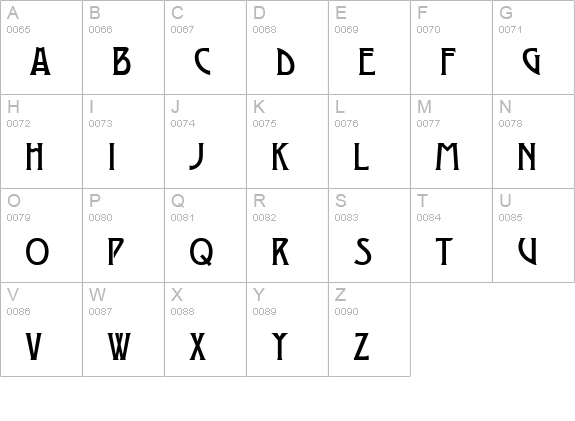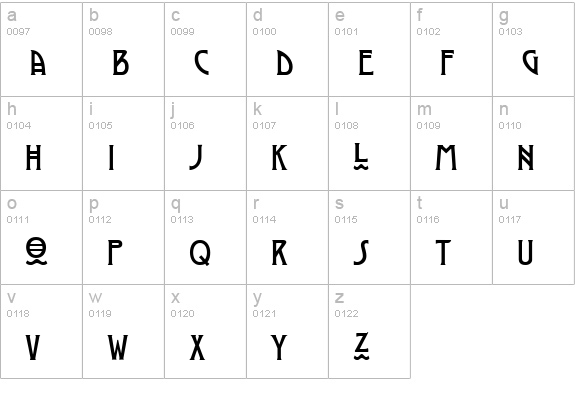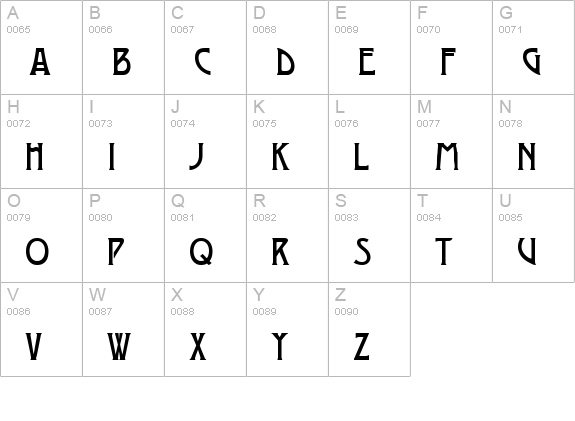
Modernist Three Font Details
Modernist Three font is a sleek and sophisticated typeface that exudes an air of contemporary flair. With its clean lines and geometric shapes, this font is perfect for creating a minimalist yet impactful design. The sharp edges and precise angles of Modernist Three give it a distinct modernist aesthetic that is both visually striking and elegant. This font is versatile and can be used for a variety of design projects, from branding and logos to posters and websites. Its bold and eye-catching appearance makes it ideal for making a statement and grabbing the viewer's attention. Best of all, Modernist Three font is available for free download at FontsMarket.com. So whether you're a seasoned designer looking to add a fresh new font to your collection or a beginner just starting out, you can easily access this stylish typeface without any cost. Don't miss out on the opportunity to enhance your designs with the sleek and modern look of Modernist Three font.